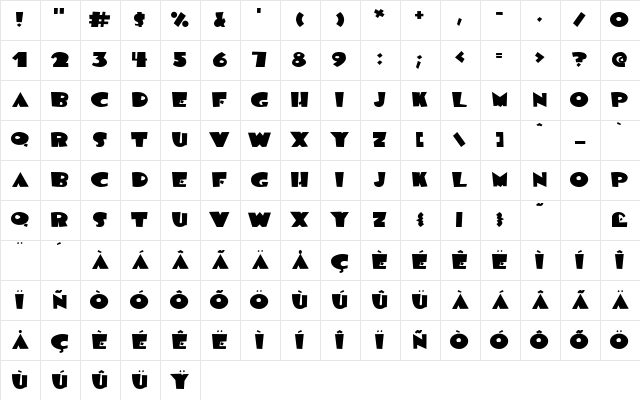
Complete BlueMoon Regular glyph index. Displaying only characters natively supported by BlueMoon Regular font.
BlueMoon is a composed and adaptable typeface that performs quietly and consistently across a wide range of design contexts.